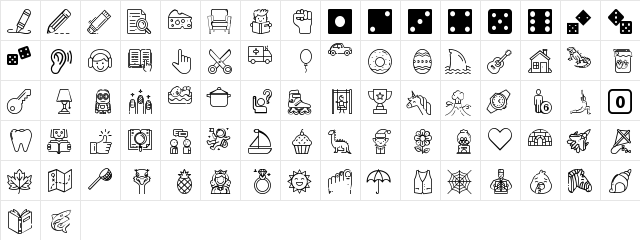
Phonics-Bats-by-Phontz Regular
Design Context for Phonics-Bats-by-Phontz Typeface
Phonics-Bats-by-Phontz takes a measured approach to typography — its balanced proportions and neutral character make it a reliable workhorse for both digital and print work.